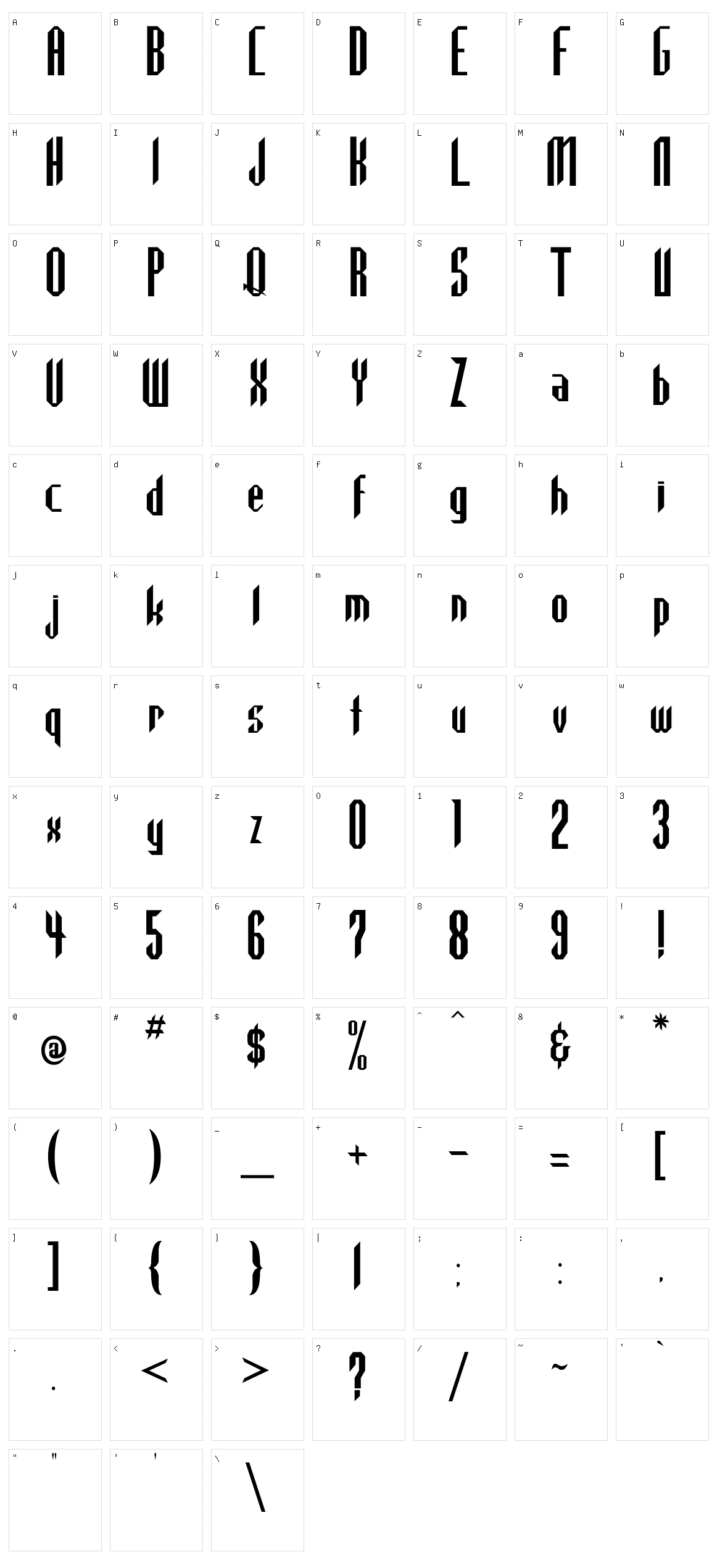
Highlander
Designed by: beccaelizabeth
Highlander font
made by beccaelizabeth in 8 hours on the 8th of september 1998.
Based on the Highlander series credits. Which means I extrapolated
from the words Highlander, Tessa, Richie and Macleod. I could have
made it prettier but this looks like the credits now.
This is version two with the lower case letters and numbers. Really
lower case is just a smaller version of the capital letters but I
thought I would play a bit.
Highlander Character Set